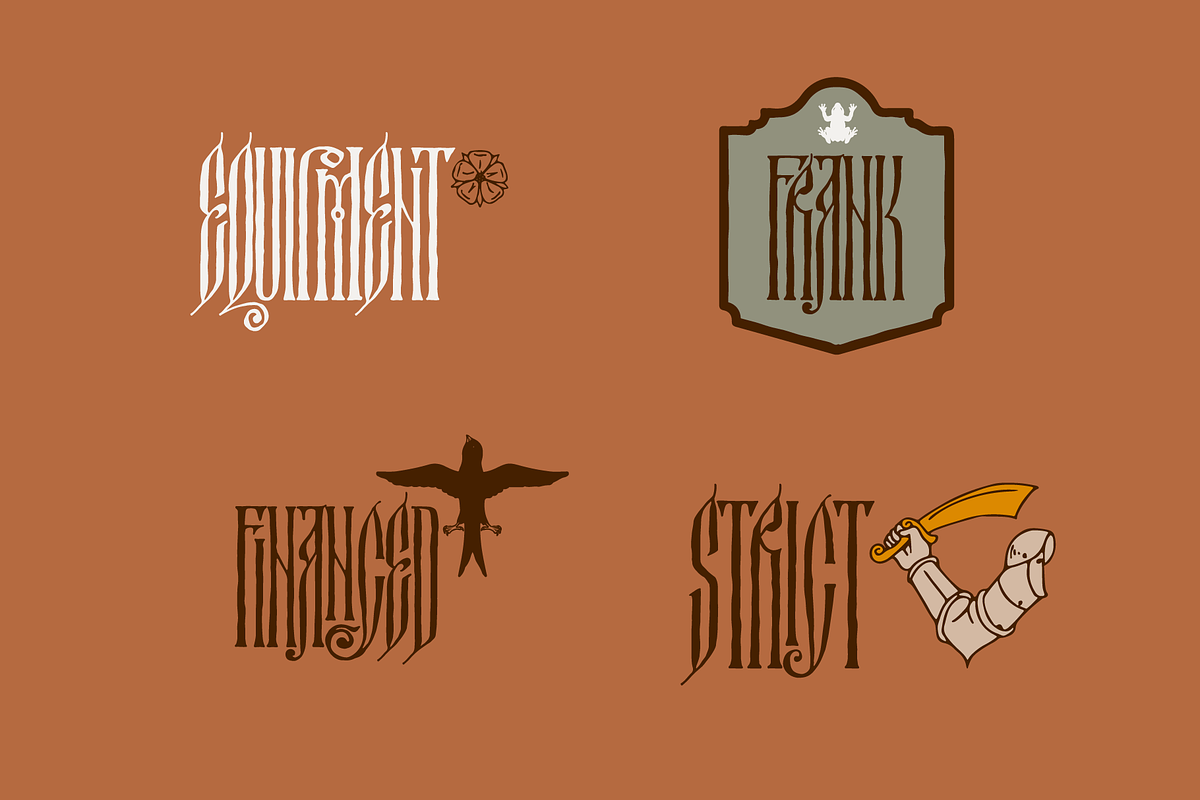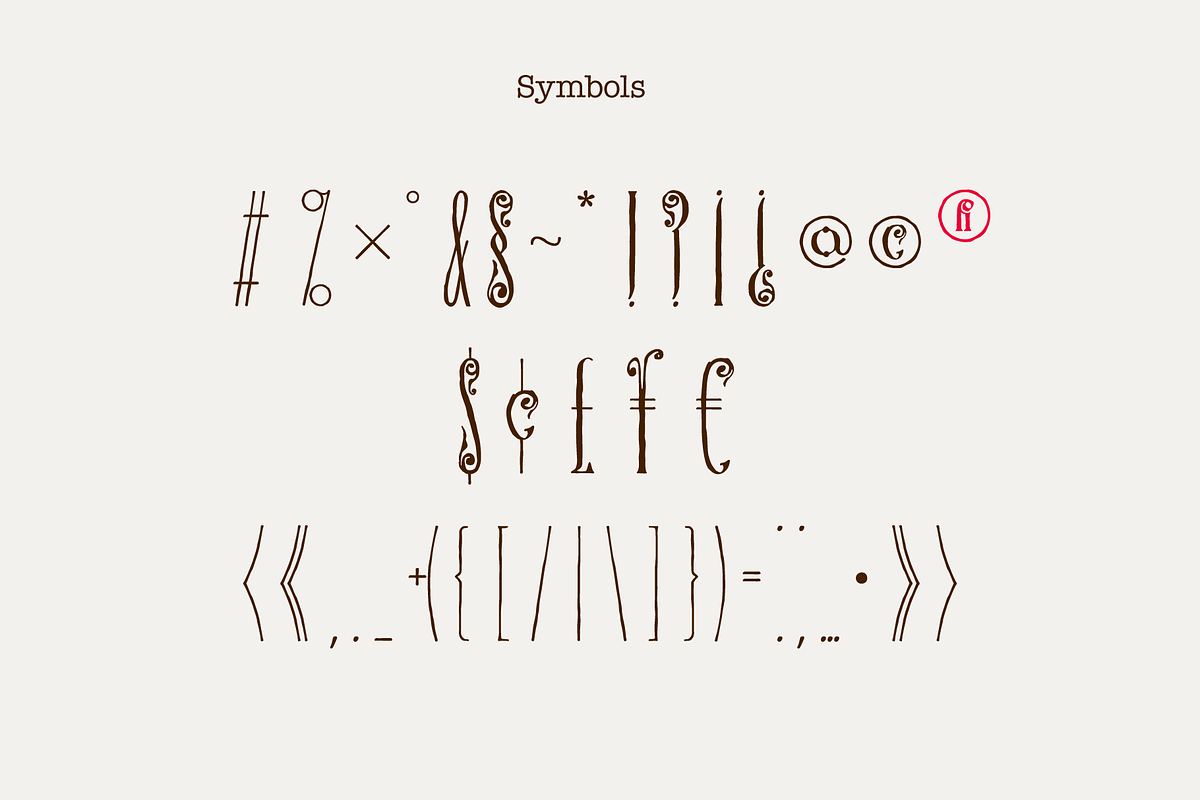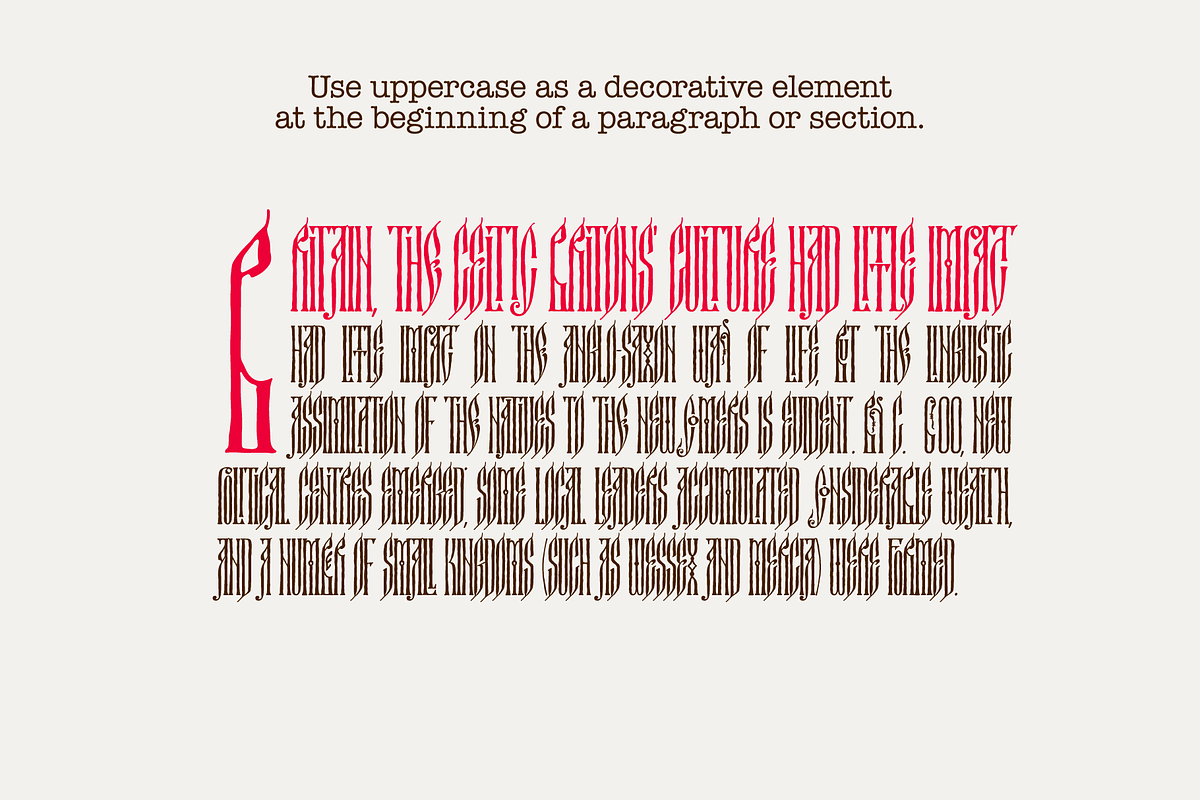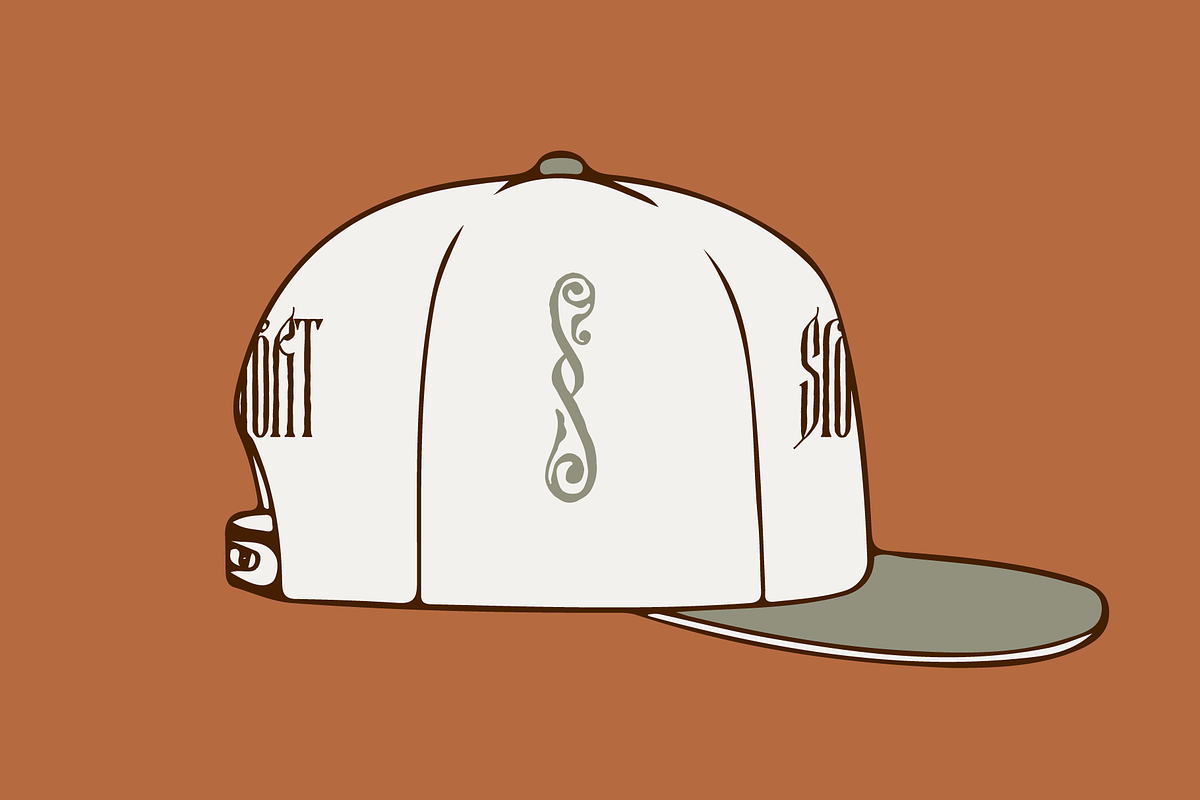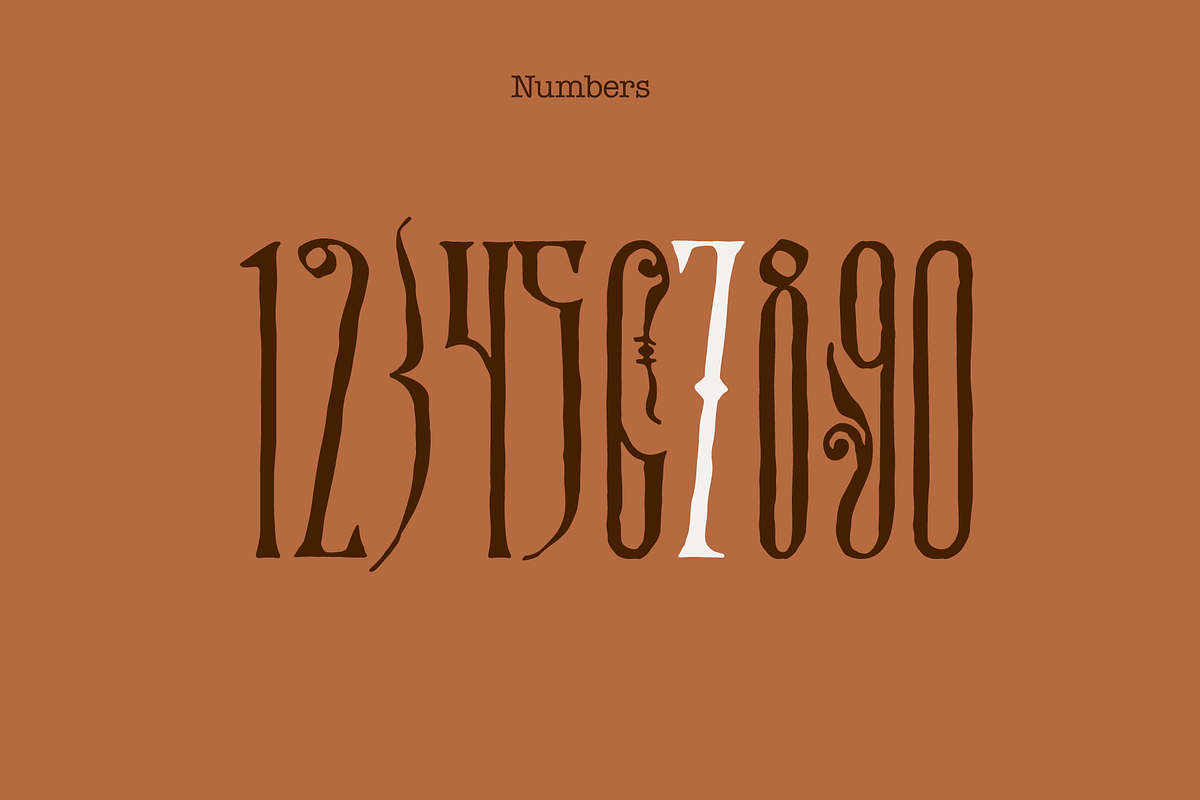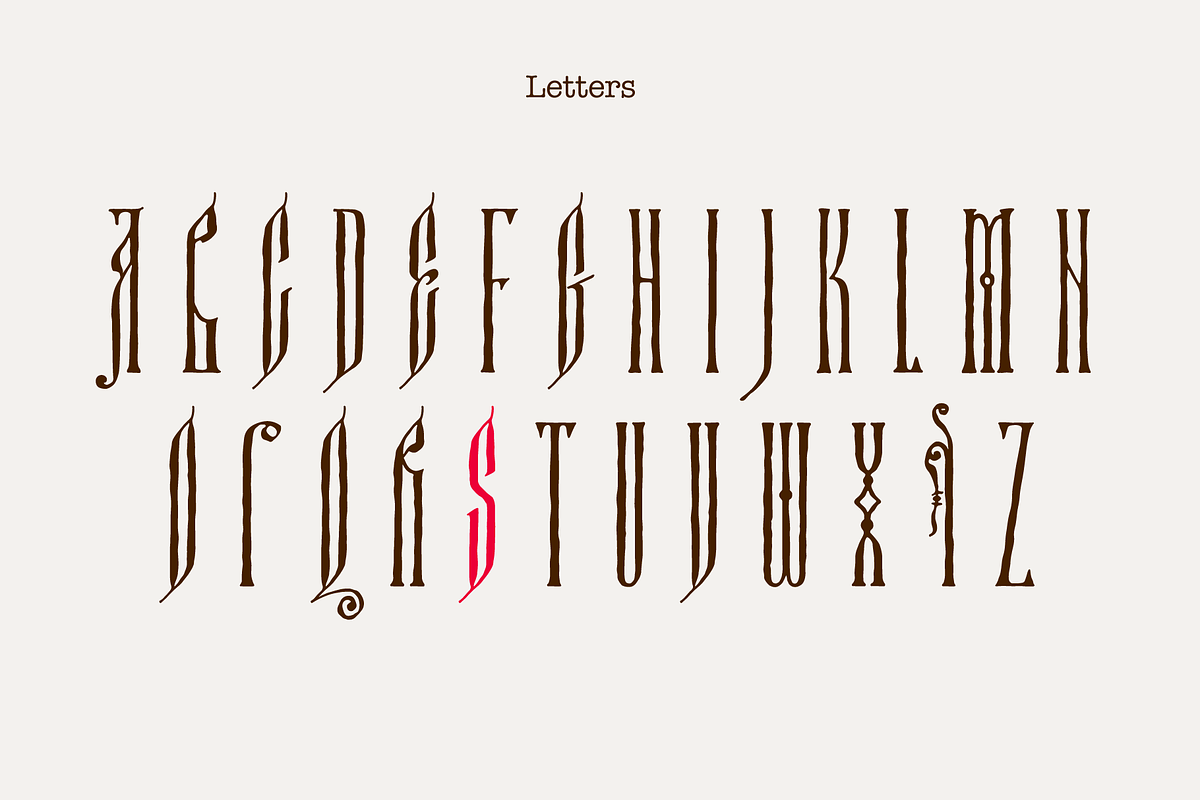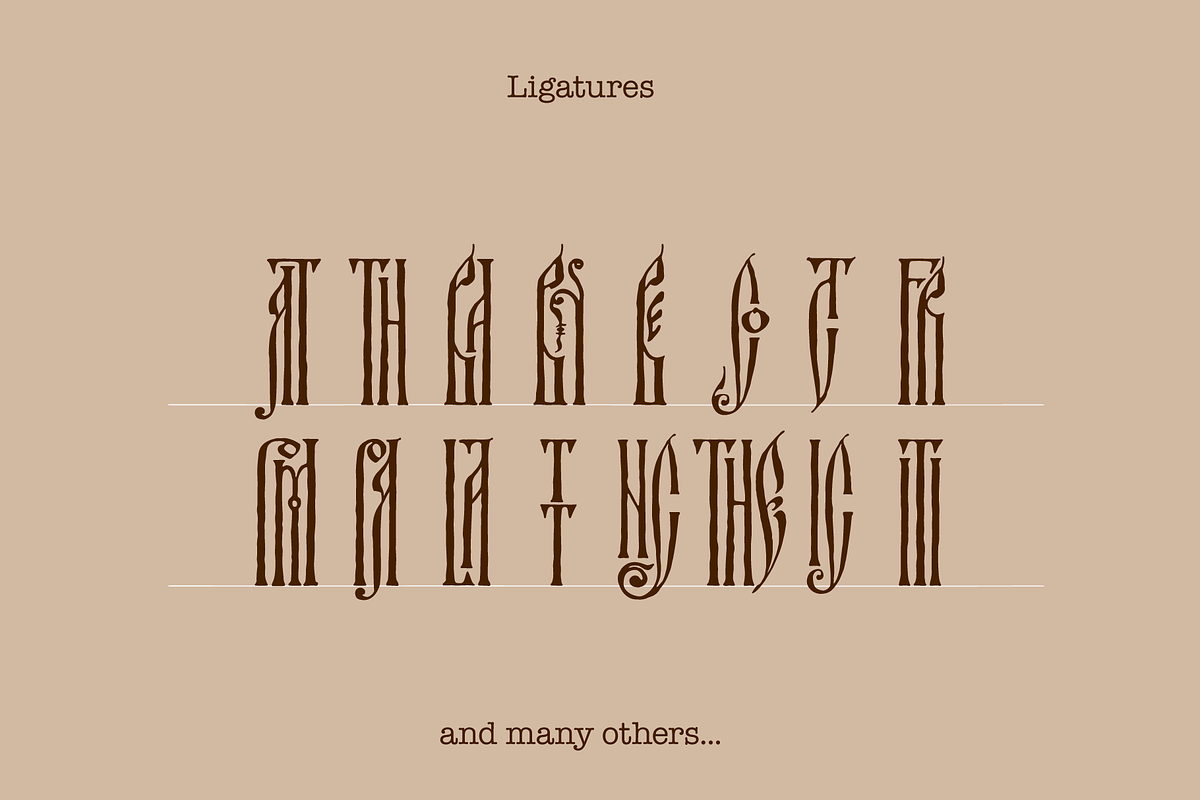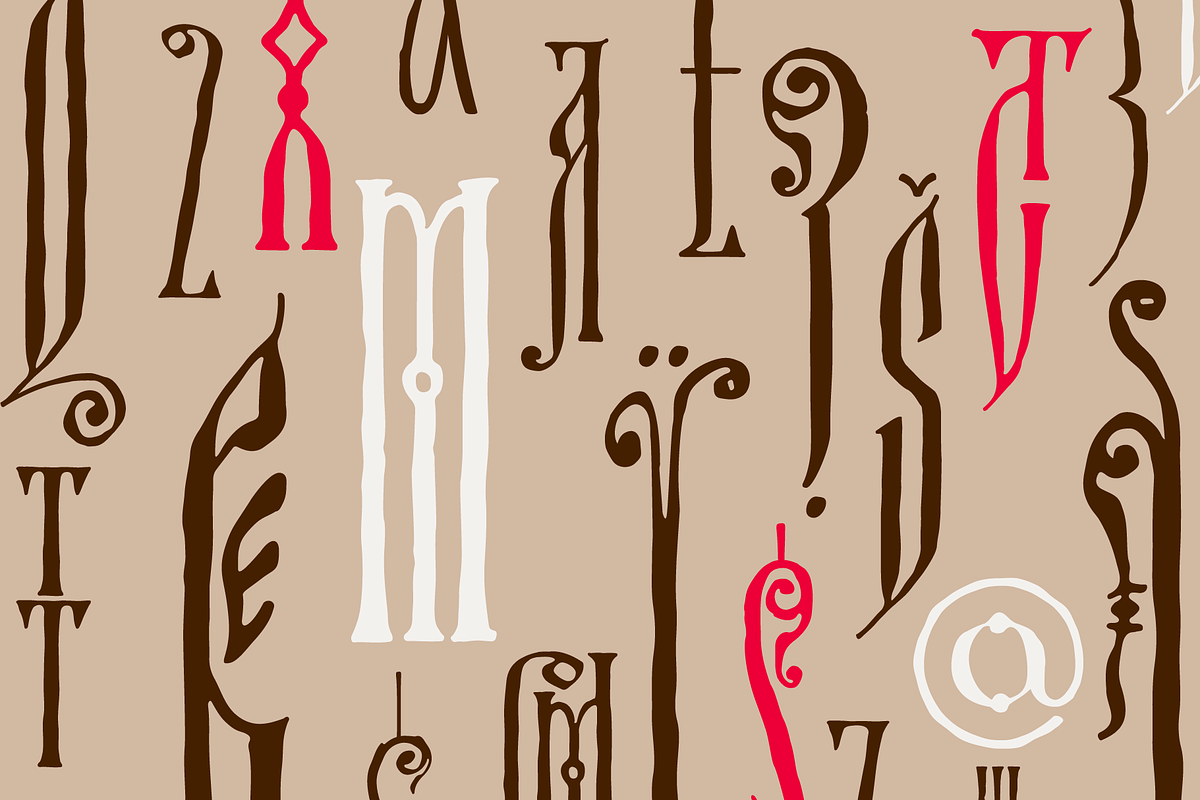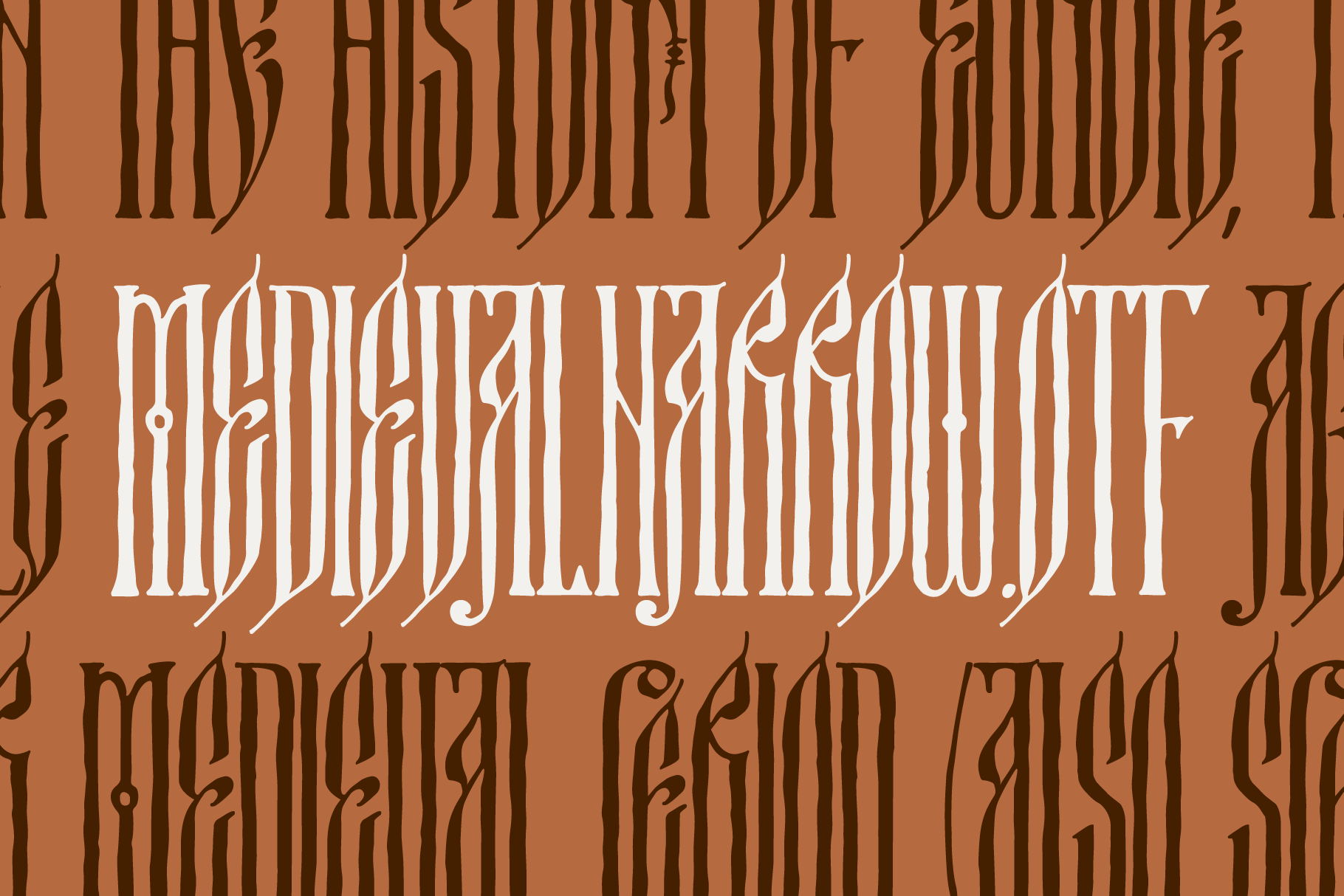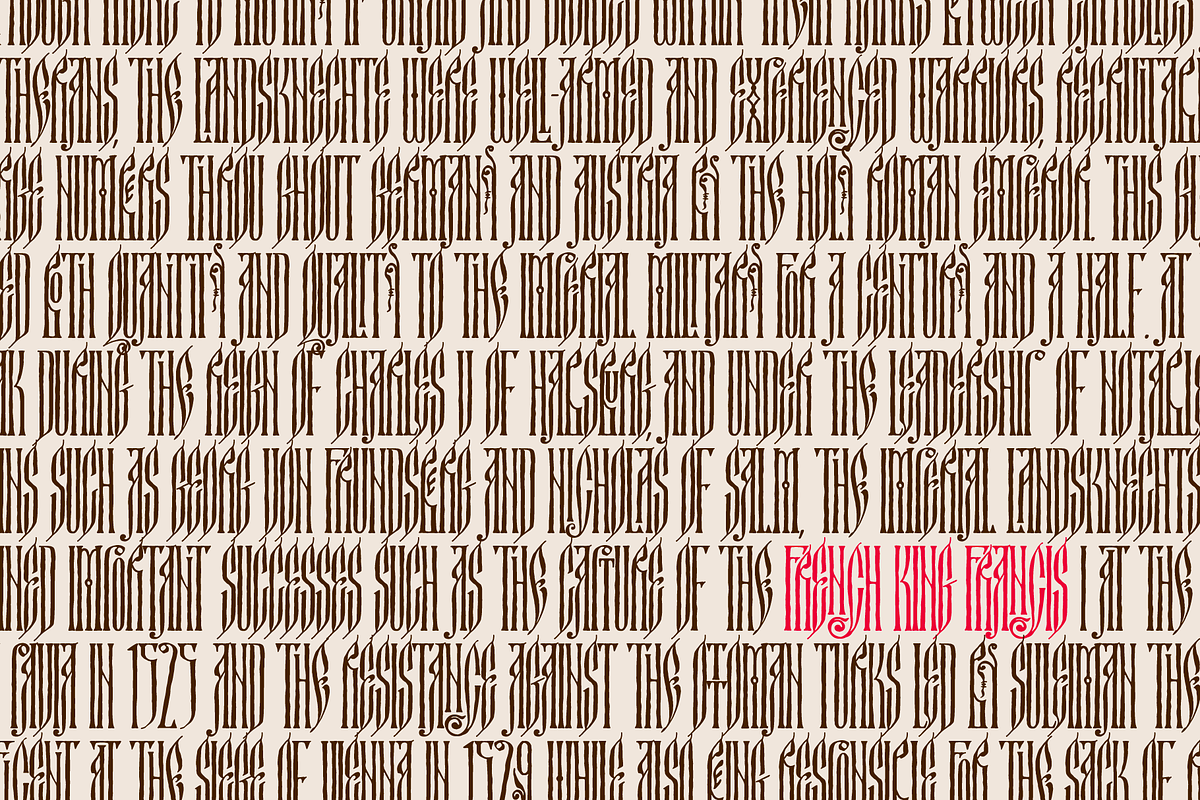
Medieval Narrow serif font
Hey! I'm happy to introduce to you my new narrow serif font in medieval style font. I took inspiration in The Tale of Abraham Palitsyn, a manuscript published in 1620. I’ve made capital letters style with rough edges.
Do you need to design perfect alcohol labels, retro style logos, music album covers, circus posters, luxury packaging identity, etc.? If you want dark and strong medieval style concepts, please try it.
- Only uppercase